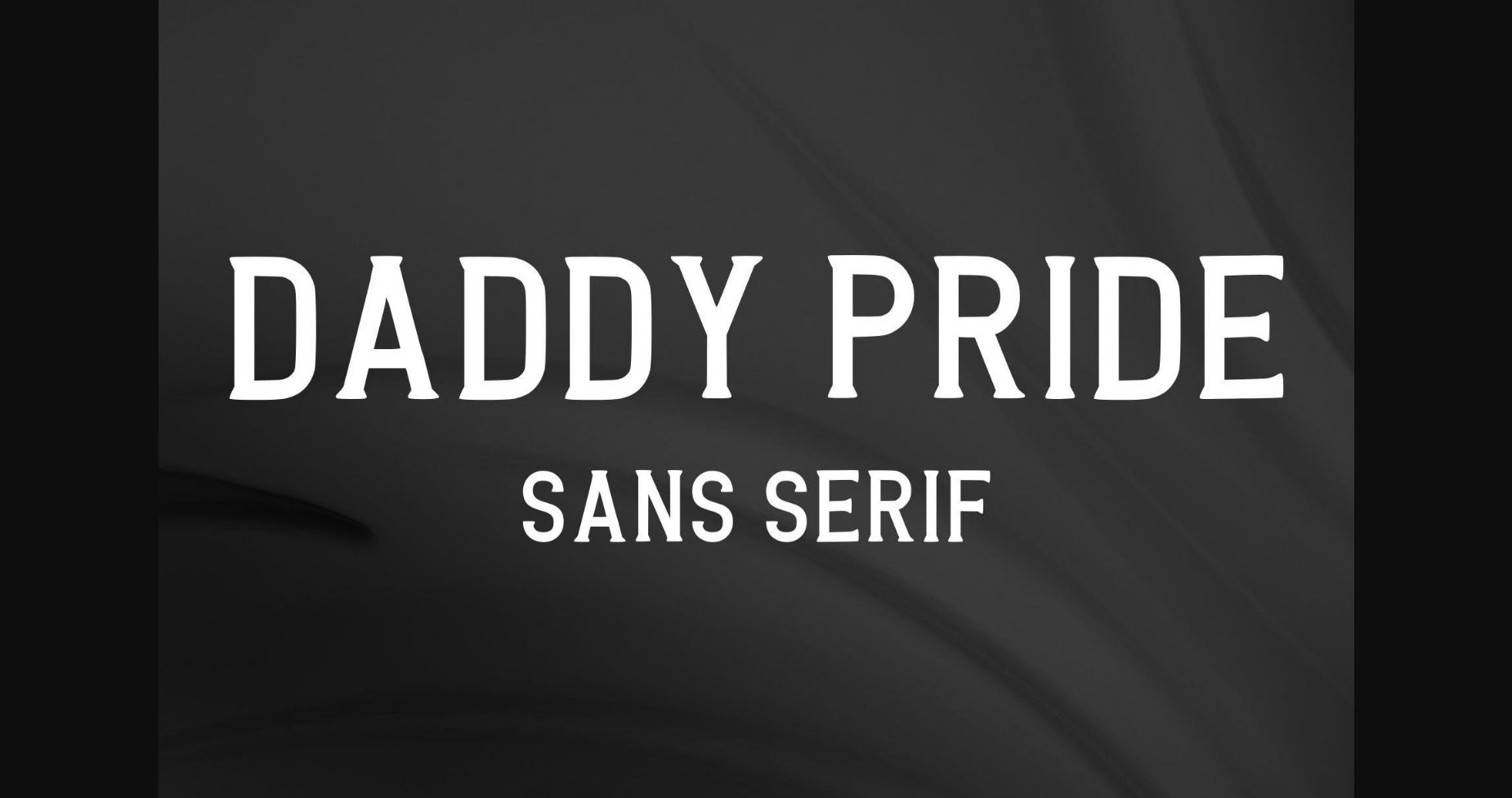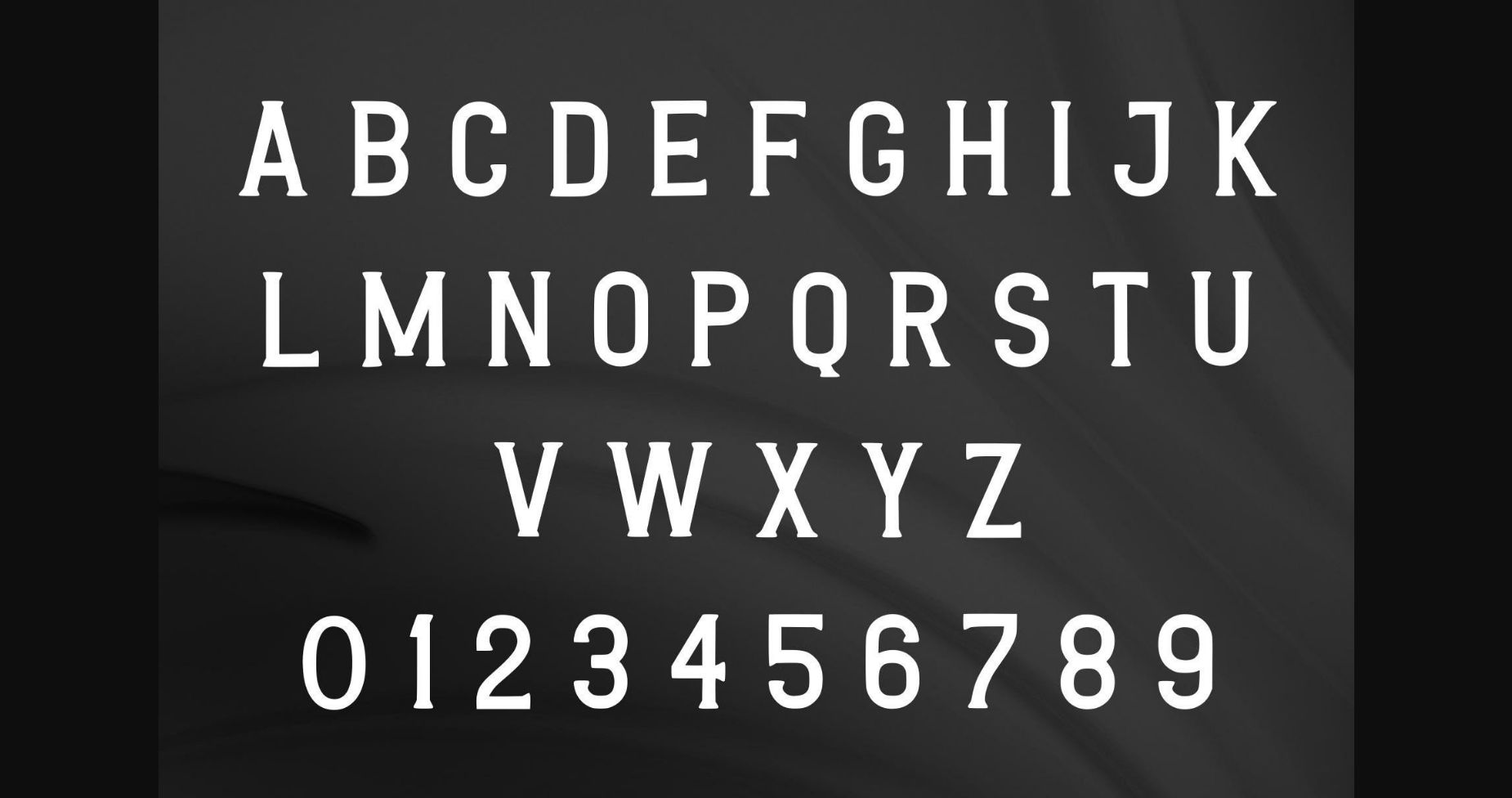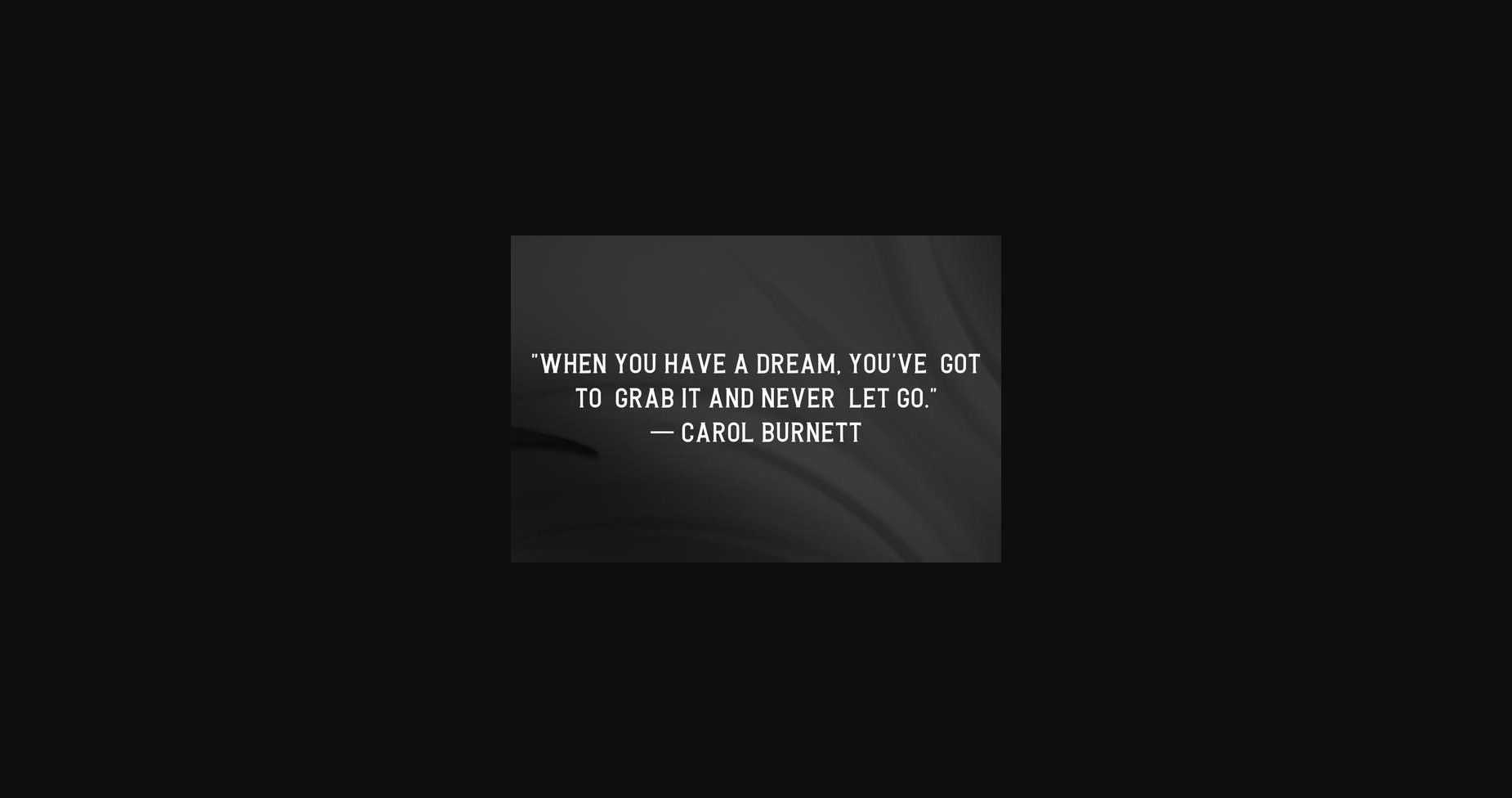
HomeSans Serif FontsDaddy Pride Font Sans Serif Fonts Daddy Pride Font FacebookXPinterestWhatsApp 1 of 5 ... Daddy Pride Font Poster 2... Daddy Pride Font Poster 3... Daddy Pride Font Poster 4... Daddy Pride Font Poster 5... About Daddy Pride Font Daddy Pride is an all-caps sans serif font that will impress you with its versatility. Whether you use it for logos, branding, and web heading, this font will be an amazing choice. DOWNLOAD NOW People also explored Country Carrah Font Selyna Avelyn Font Greenhouse Font Malwrence Font Madelican Font Wonderfull Mother Font Sunround Font Mistress Font Wisteria Notes Font 433 0 TagsDaddy Pride Font Previous articleRitola Sans FontNext articleFarmhouse Font LEAVE A REPLY Cancel reply Comment: Please enter your comment! Name:* Please enter your name here Email:* You have entered an incorrect email address! Please enter your email address here Website: Save my name, email, and website in this browser for the next time I comment. Personal Use Free Diland Personal Use Free Read more about this font Williana Personal Use Free Read more about this font Dear Monita Personal Use Free Read more about this font Aragon Personal Use Free Read more about this font BLOG Using Fonts in Digital Marketing: Tips to Strengthen Your Brand Identity In the realm of digital marketing, every visual element plays a crucial role in shaping a brand's identity, and fonts are no exception. The... Free Fonts Risk: Why Free Fonts Can Be Dangerous for Designers The 10 Best Handwriting Fonts to Add Personality to Your Designs Exploring Font Trends